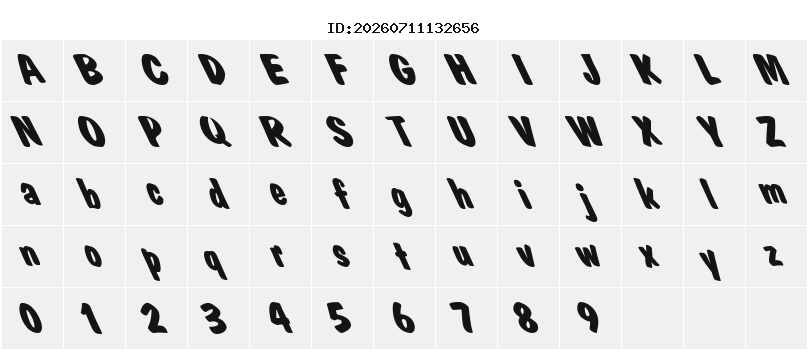
• Font Name: Market Bold Left
• Full Font Name: Market Bold Left
Market Bold Left.ttf is a modern, elegant sans-serif font designed for ultimate readability and visual harmony. Perfect for branding, headlines, web design, and print materials.